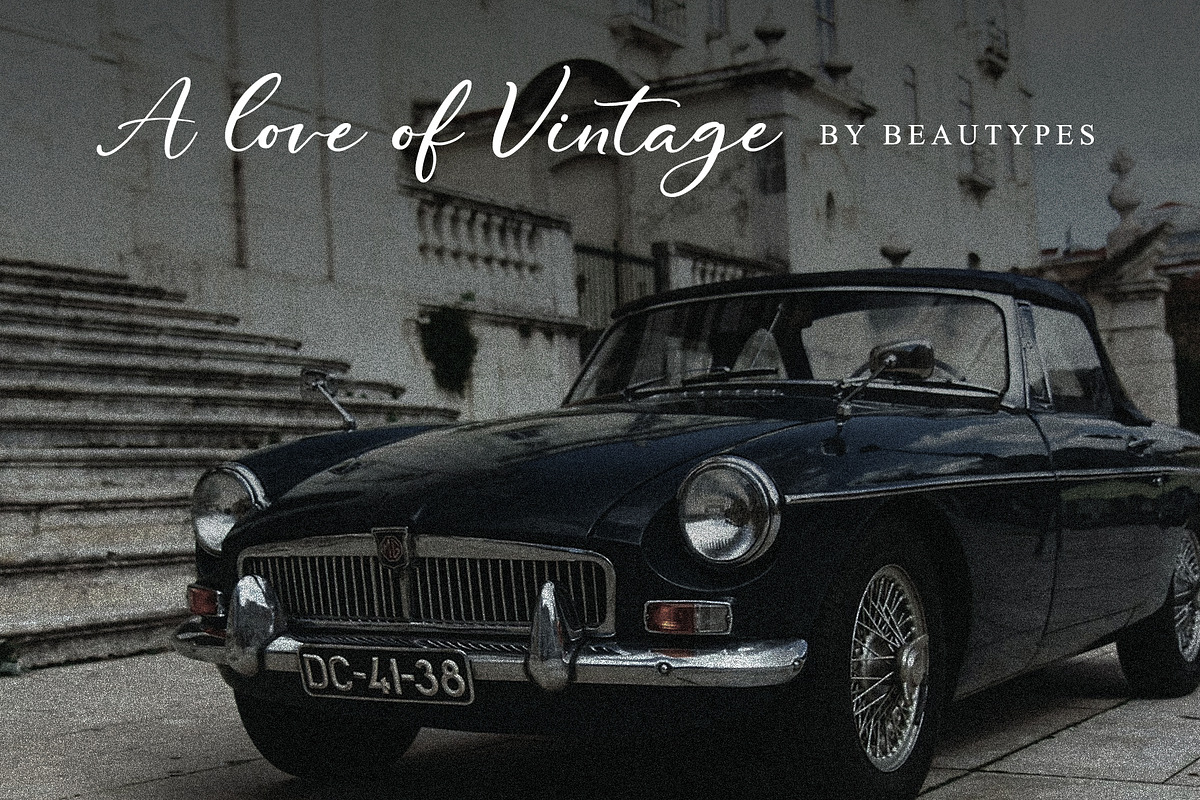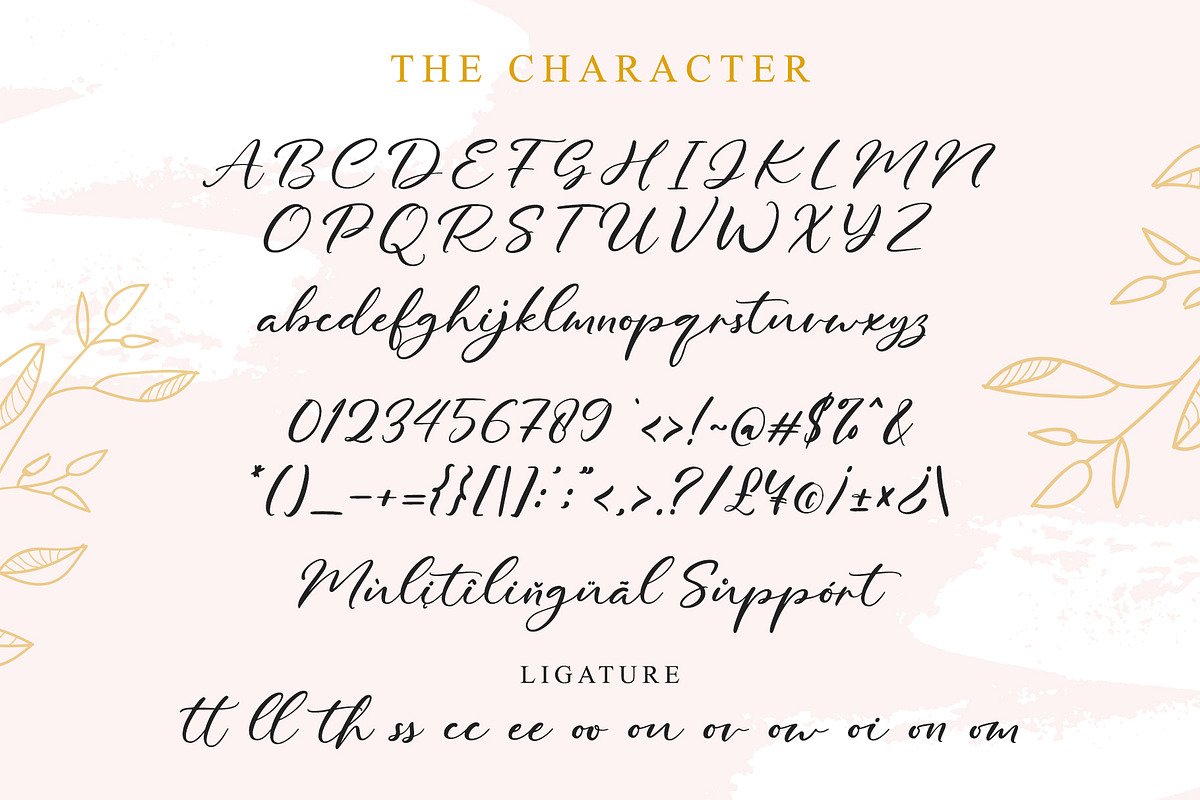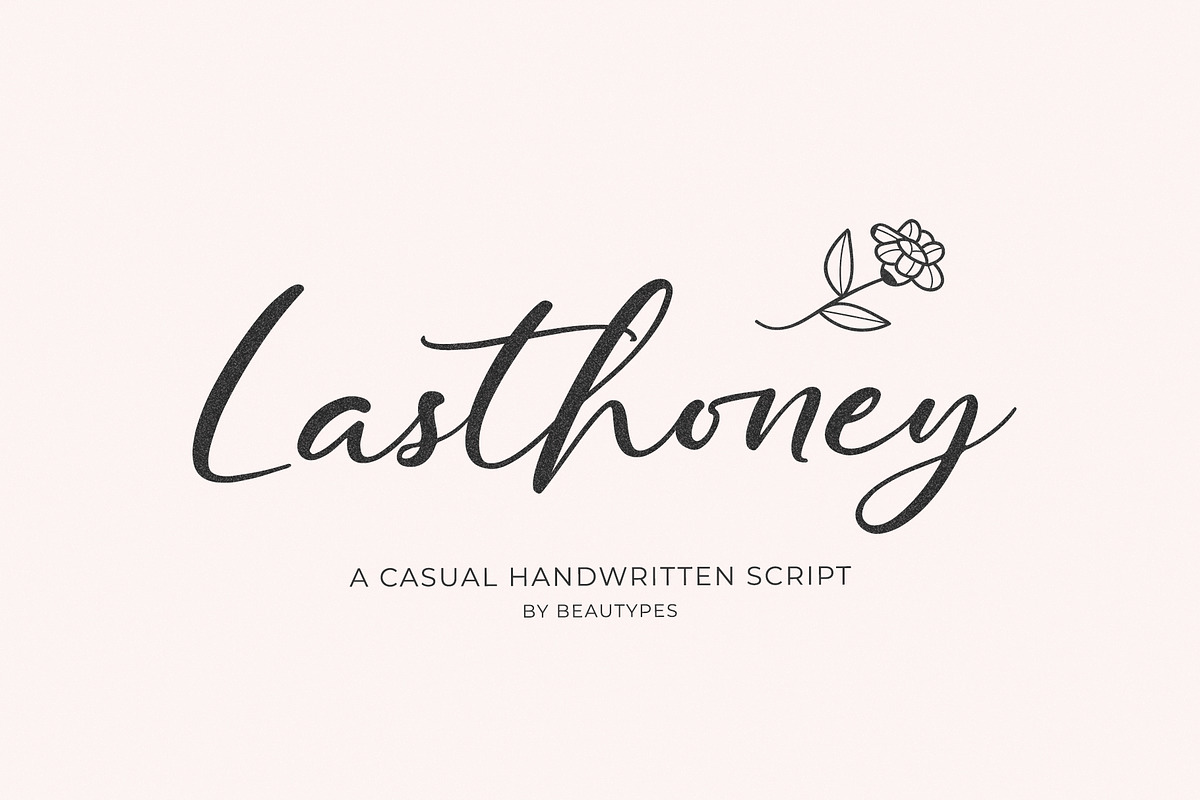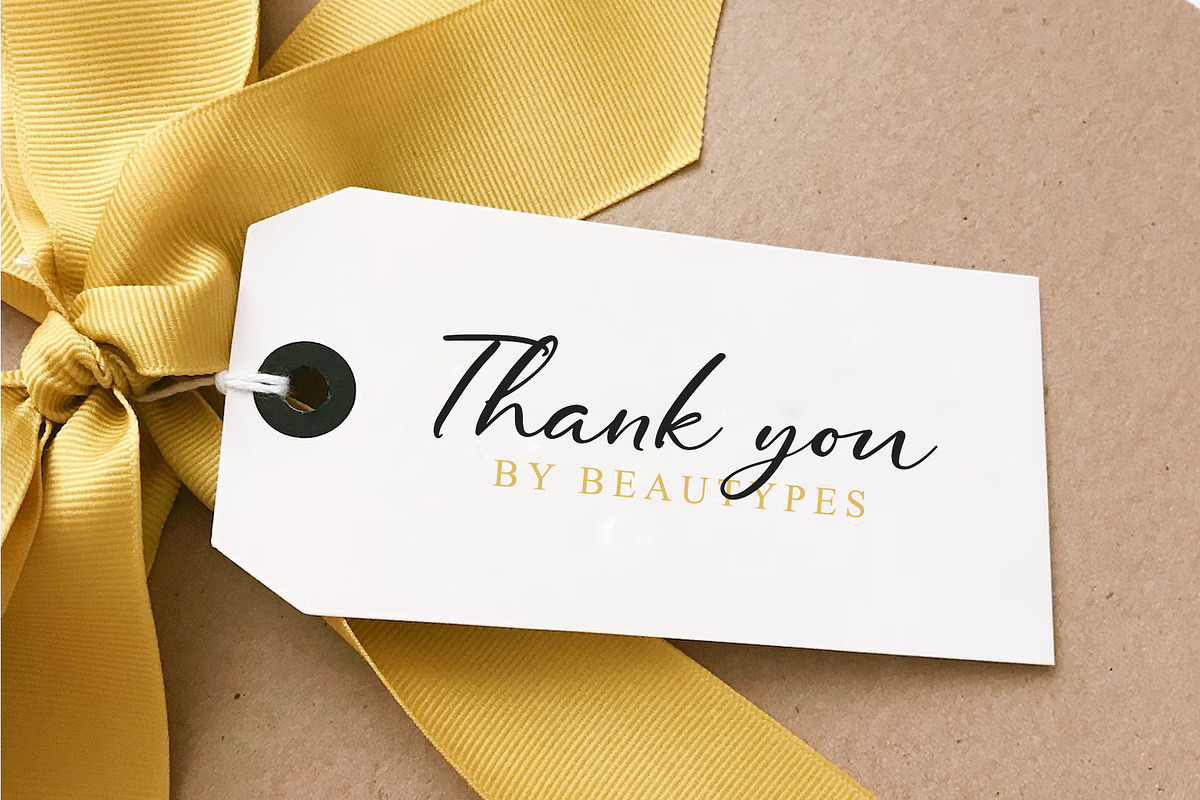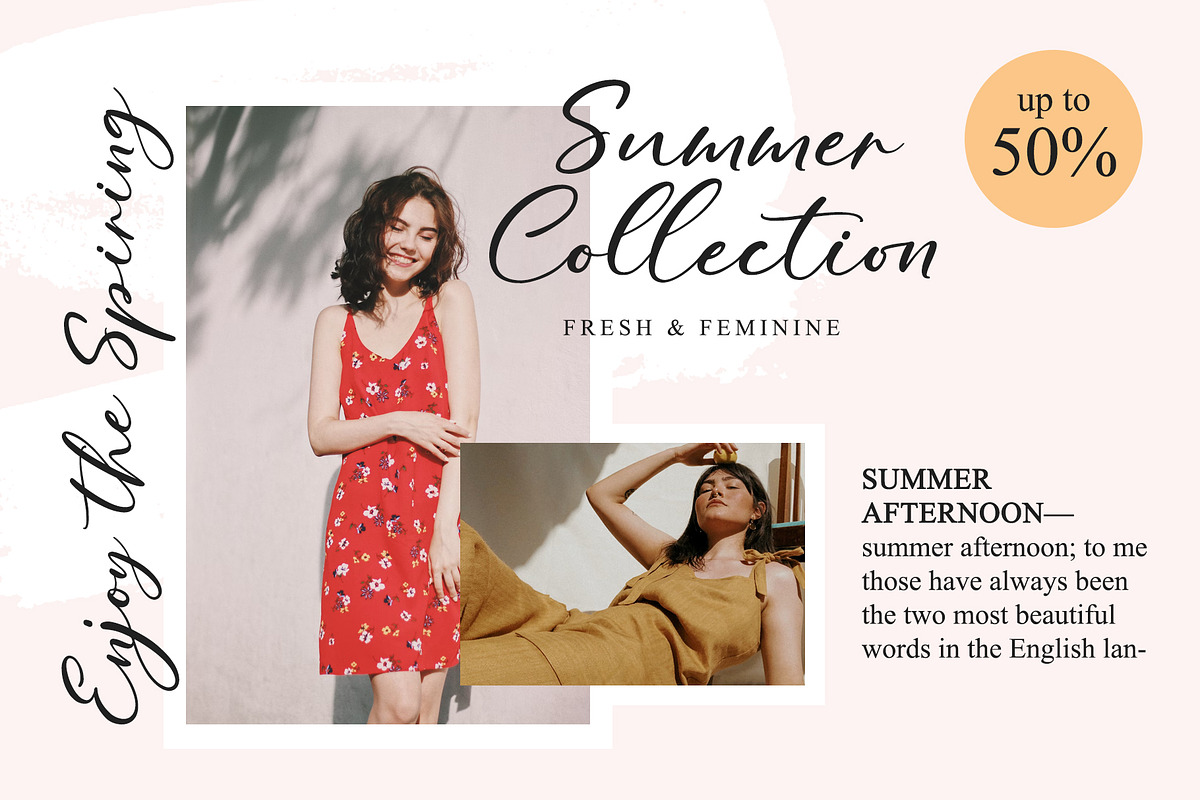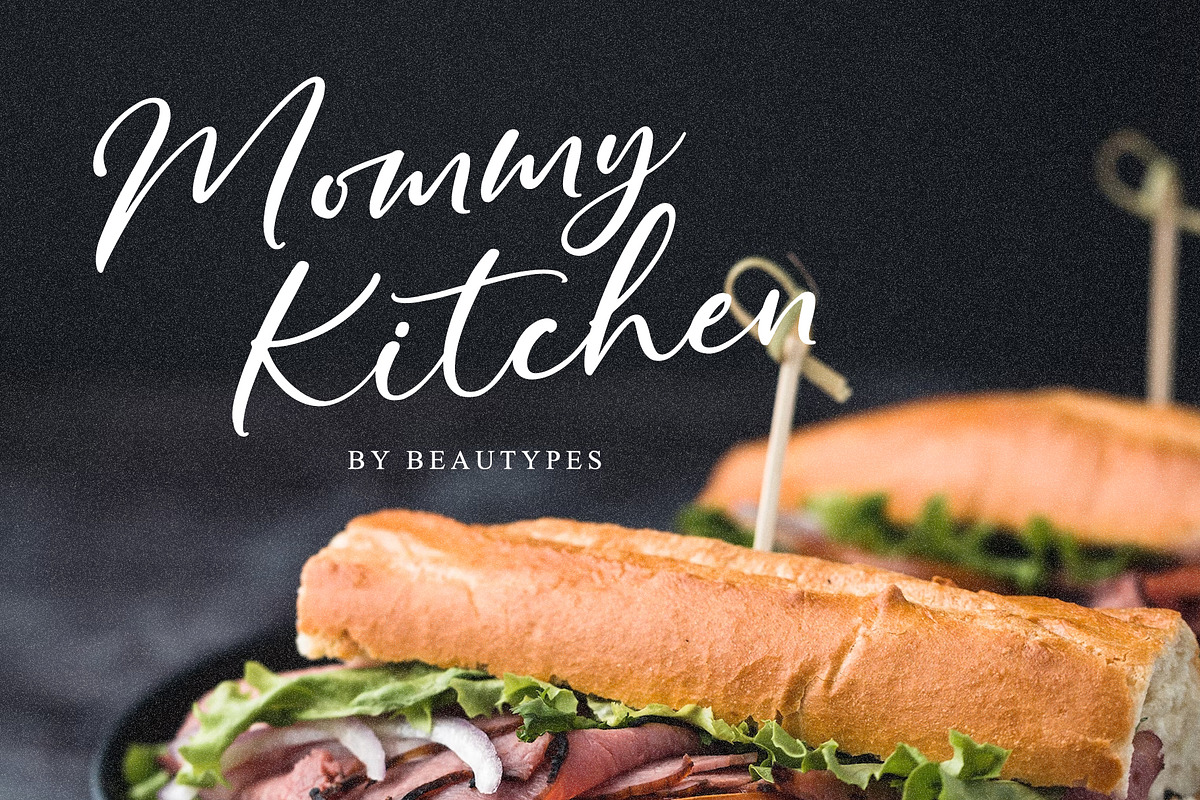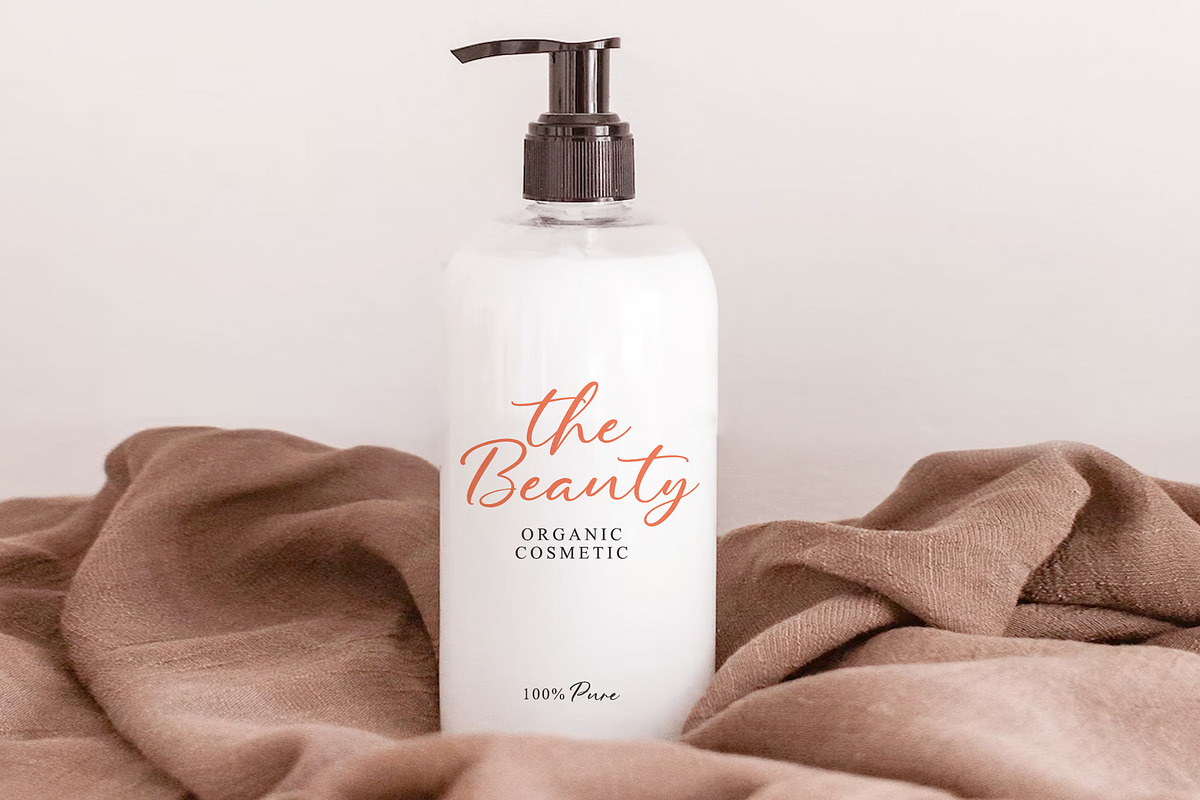
Lasthoney - A handwritten script
Introducing Lasthoney, a unique and elegant casual handwritten script font.
Perfect for : elegant branding, wedding stationery, romantic book cover designs, classy packaging, album covers, handwritten quotes, greeting cards, unique social media posts, and so much more.